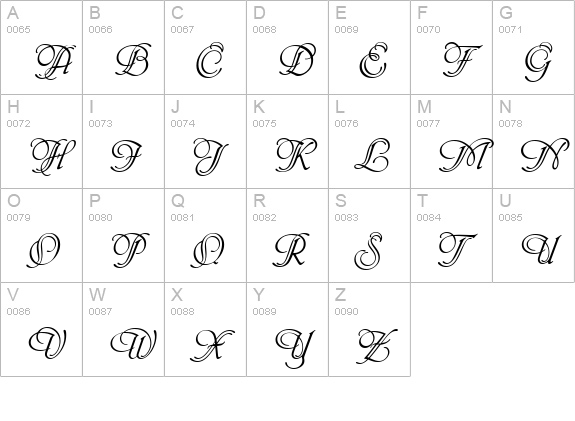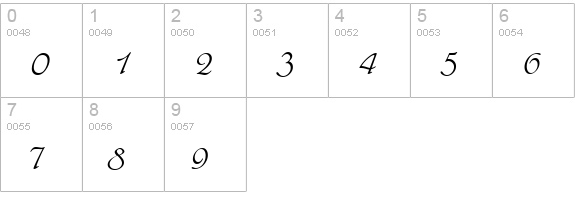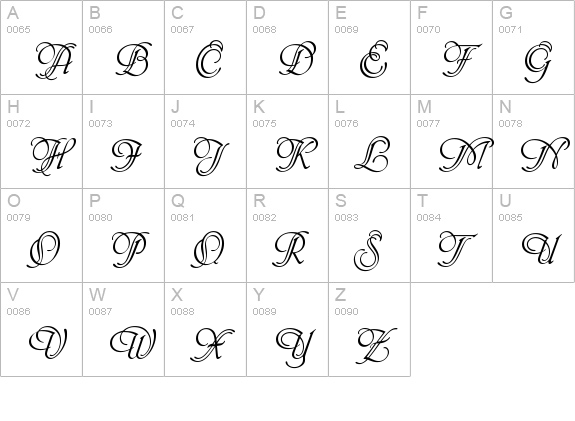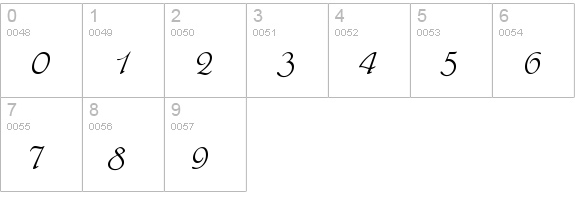
Philadelphia-Initials-Regular is the standard, neutral variant in the Philadelphia typeface family \xE2\x80\x94 well suited to general body text, paragraphs, and standard typographic work.
Philadelphia-Initials-Regular font is a stunning display typeface that exudes elegance and sophistication. With its intricate details and classic design, this font is perfect for adding a touch of luxury to any project. The ornate initials and decorative elements make it ideal for creating eye-catching headings, logos, invitations, and more. What makes Philadelphia-Initials-Regular font even more appealing is that it is available for free download at FontsMarket.com. This means you can easily access this beautiful font and use it in your designs without any cost. Don't miss the opportunity to enhance your creations with the timeless charm of Philadelphia-Initials-Regular font. Download it today and elevate your design projects to a new level of sophistication.